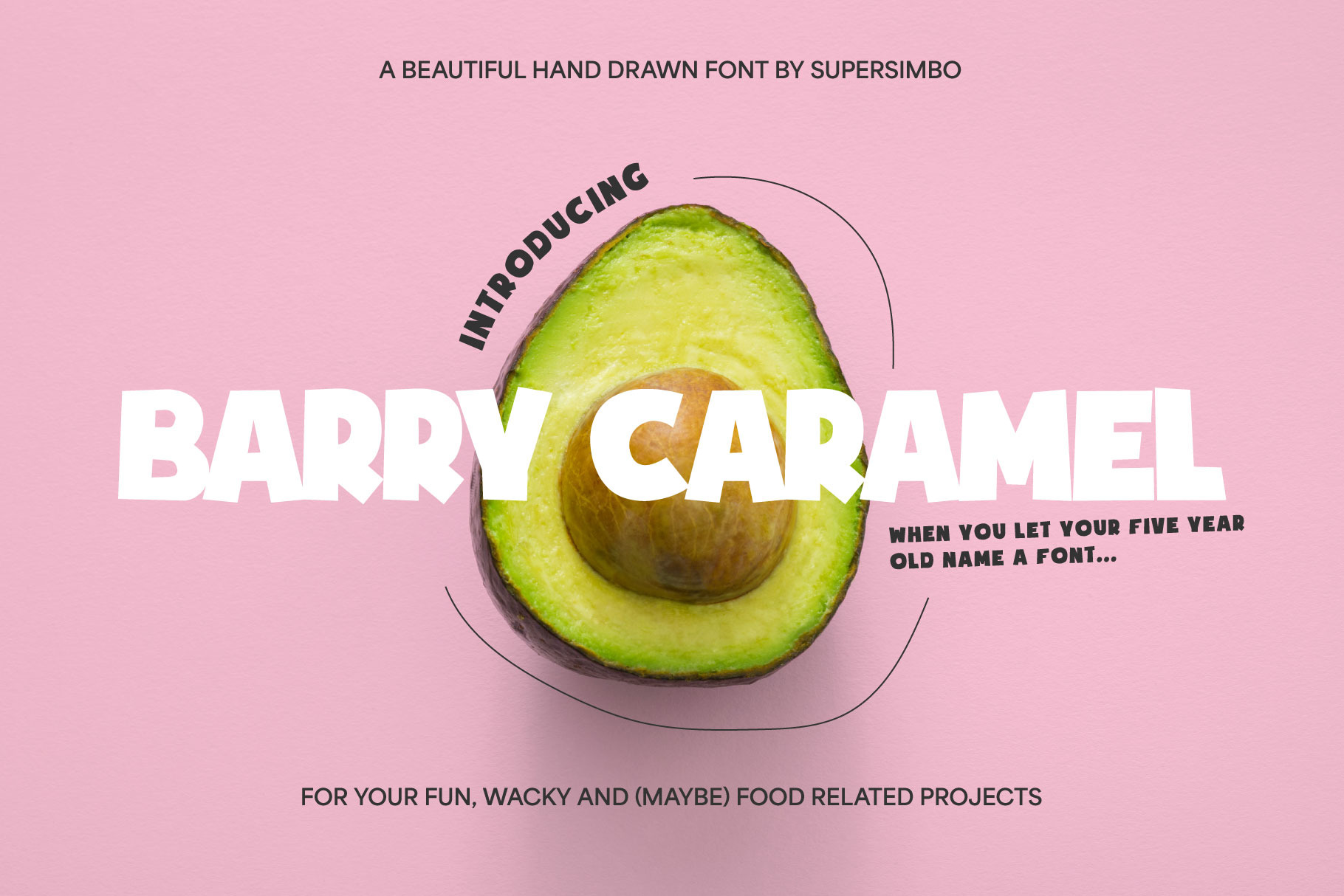
Barry Caramel | Hand drawn font
This is what happens when you let your five year old name a font. This is Barry Caramel, a hand drawn font for your fun, wacky and (maybe) food related projects. It's chunky and versatile which I always say... yawn...but it is, trust me. Buy it, you'll love it...